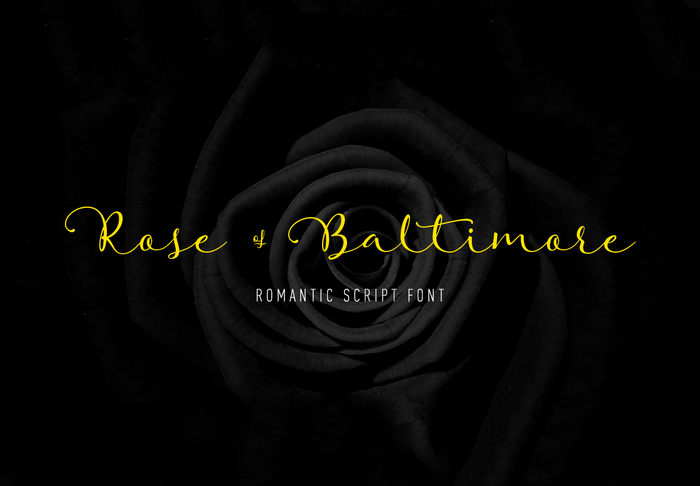
Rose Of Baltimore Font
Rose of Baltimore is a romantic script font. For lovers ! The full commercial version comes with a huge collection of 100 alternate glyphes and contextual ligatures.
The commercial version contains a huge set of 100 alternate glyphes and contextual ligatures to create your own style!